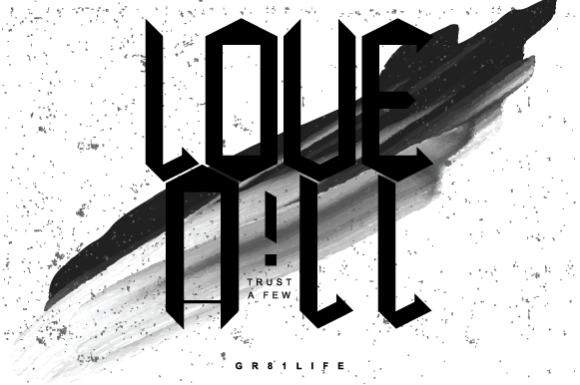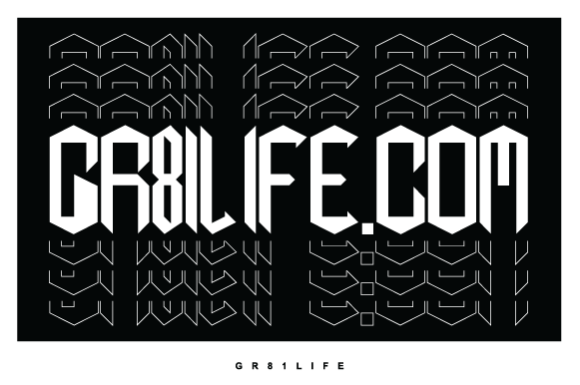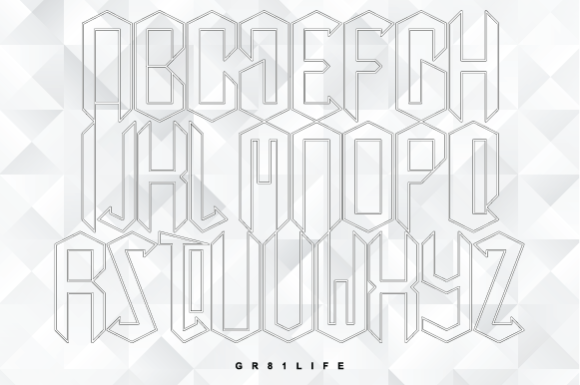
Introducing Great Times Font: A Unique Blackletter Masterpiece
In the world of typography, few fonts have managed to capture the essence of abstract shapes and eclectic beauty as effectively as Great Times. This innovative blackletter font is a game-changer for designers and crafters looking to add a touch of uniqueness to their projects. With its playfully conceptual design, Great Times is set to make a statement in a wide range of contexts, from creative branding to artistic crafting.
The Story Behind Great Times
Great Times is more than just a font – it’s an experience. Its creators aimed to push the boundaries of traditional blackletter typography by infusing it with a modern twist. The result is a font that not only pays homage to the classic blackletter style but also introduces a fresh, avant-garde aesthetic that’s hard to ignore.
Key Features of Great Times Font
- Unique Abstract Shapes: Great Times celebrates the beauty of abstract shapes, making it a standout in the world of typography. Each letterform is carefully crafted to showcase eclectic lines and curves that add a touch of sophistication to any design.
- Playfully Conceptual Design: The font’s design is not just about aesthetics; it’s also about conveying a sense of playfulness and creativity. This makes Great Times perfect for projects that require a bit of whimsy and flair.
- Versatility: Whether you’re working on a branding project, crafting a unique logo, or simply looking to add some personality to your digital content, Great Times is incredibly versatile. It can be used in a variety of contexts, from digital media to print materials.
- Legibility: Despite its unconventional design, Great Times remains highly legible, making it suitable for both headlines and body text. This ensures that your message is conveyed effectively, without compromising on style.
How to Use Great Times in Your Projects
Integrating Great Times into your design projects is straightforward. Here are a few ideas to get you started:
- Branding and Logos: Use Great Times to create a memorable brand identity that stands out from the competition. Its unique design ensures that your logo will be remembered.
- Digital Content: Add a touch of personality to your website, blog, or social media posts with Great Times. It’s perfect for headings, titles, and any place you want to make a visual impact.
- Crafting and DIY Projects: If you’re into crafting, scrapbooking, or any form of DIY project, Great Times can add a creative flair to your work. Use it for titles, captions, or any text element that needs a bit of style.
Tips for Maximizing Great Times’ Potential
To get the most out of Great Times, consider the following tips:
- Experiment with Colors: Great Times looks stunning in bold colors. Don’t be afraid to experiment with different color schemes to find the perfect match for your project.
- Mix and Match: Combine Great Times with other fonts to create a unique typography blend. Its distinctive style pairs well with both modern and traditional fonts.
- Play with Sizes: The font’s design ensures that it remains legible at various sizes. Play around with different sizes to add depth and hierarchy to your designs.
Great Times is an incredibly unique and innovative blackletter font that is sure to elevate your design projects. Its celebration of abstract shapes in all their eclectic beauty, combined with a playfully conceptual approach, makes it a standout choice for designers and crafters alike. Whether you’re looking to make a bold statement or simply add a touch of creativity to your work, Great Times is an excellent choice. Embrace the beauty of abstract typography and let Great Times take your designs to the next level.